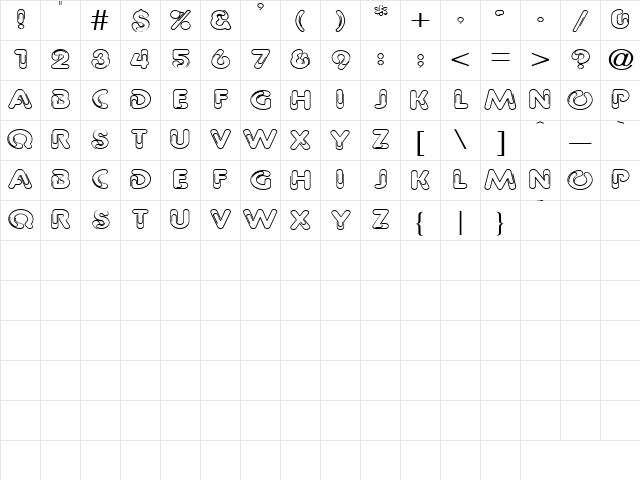
Snow-blind 4 Regular
Design Context for Snow-blind 4
Snow-blind 4 is a composed and adaptable typeface that performs quietly and consistently across a wide range of design contexts.
Pro Tip: Use Snow-blind 4 in both headline and body roles to test its range before committing to a single application.